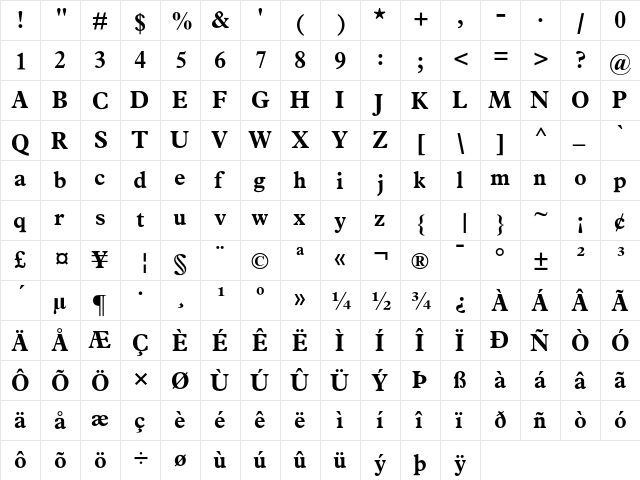
News Plantin Bold
Design Context for News Plantin Typeface
News Plantin is a composed and adaptable typeface that performs quietly and consistently across a wide range of design contexts. Its bold stroke weight gives it real presence on the page.